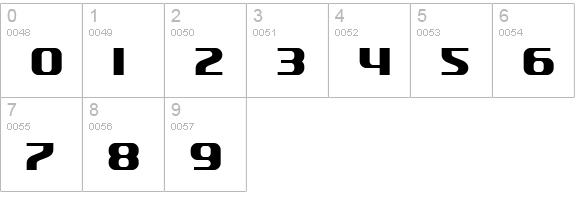
SF Quartzite Font Details
Introducing SF Quartzite, a stunning and versatile font that will elevate your designs to new heights. With its sleek and modern aesthetic, SF Quartzite is perfect for a wide range of projects, from branding and logos to social media graphics and website designs. This font features clean lines and sharp edges, giving it a contemporary and sophisticated look. Its unique letterforms are crafted with precision, ensuring legibility and readability across various mediums. Whether you're creating captivating headlines or elegant body text, SF Quartzite delivers a professional and polished finish every time. One of the best parts about SF Quartzite is that it's available for free! That's right, you can download this extraordinary font at FontsMarket.com without spending a dime. We believe that great design should be accessible to all, and by offering SF Quartzite for free, we're empowering creatives like you to bring your vision to life without breaking the bank. With SF Quartzite, your designs will stand out from the crowd. Its versatility allows it to be used in a multitude of creative projects, making it a valuable addition to any designer's toolkit. Whether you're working on a minimalist logo or a bold poster, SF Quartzite has the flexibility to adapt and enhance your artistic expression. Don't miss out on the opportunity to elevate your designs with SF Quartzite. Download this remarkable font today, free of charge, at FontsMarket.com. Unleash your creativity and let SF Quartzite be the cornerstone of your next design masterpiece.